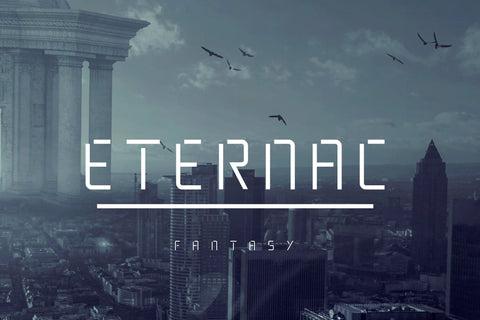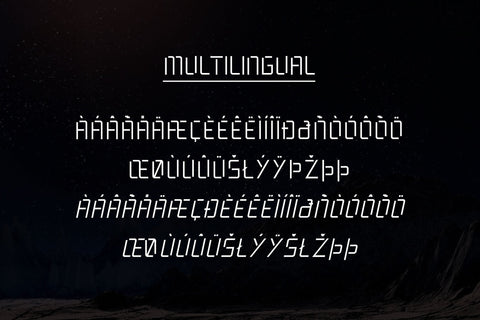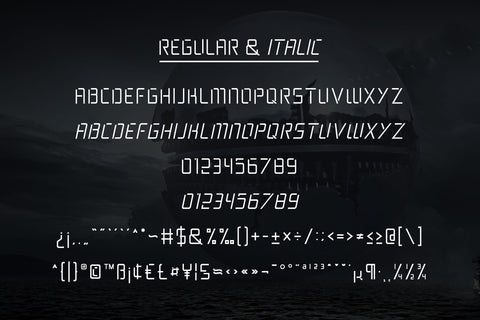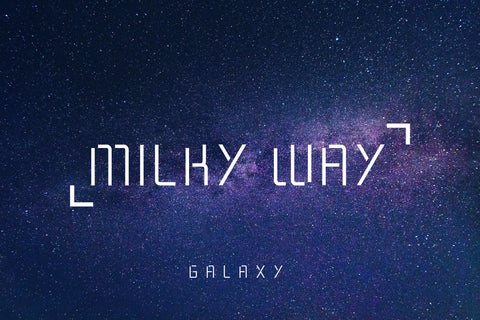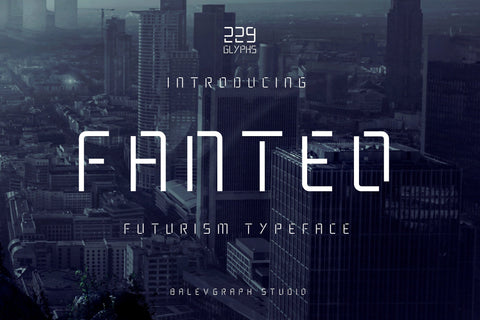
Fanteo Futuristic Typeface
Fanteo is a cool, modern and neat display font. This font is ideal for writing web designs, business cards, or pretty much anything else that requires a unique touch.